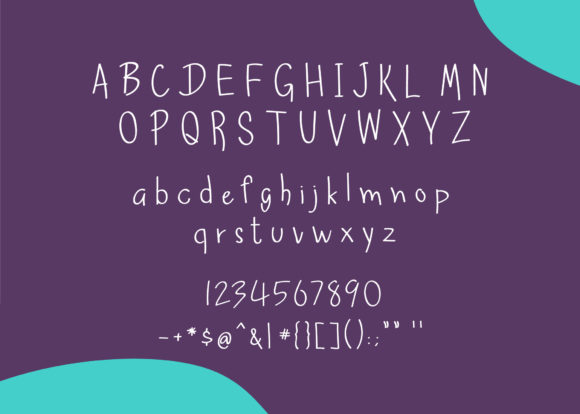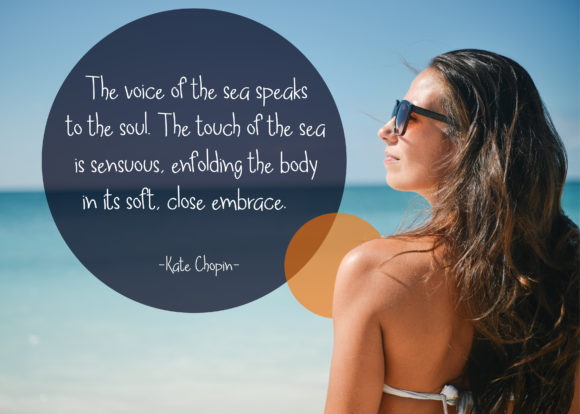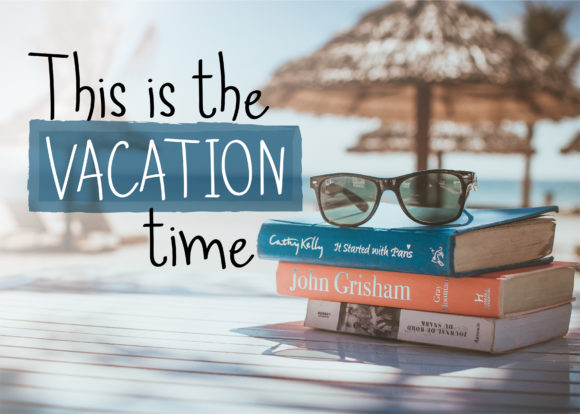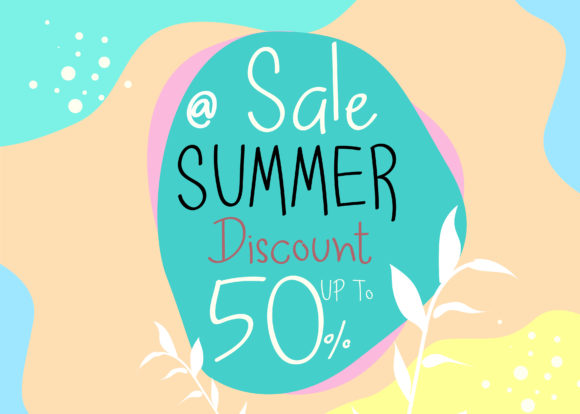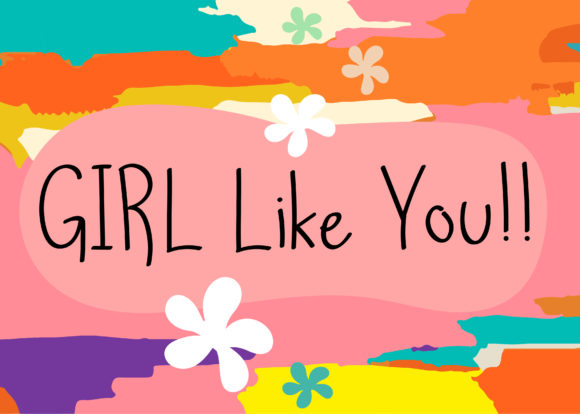
Introducing Beach Girl Font: The Perfect Addition to Your Summer Creative Projects
Are you looking for a font that captures the carefree and playful essence of summer? Look no further than Beach Girl Font, a simple and friendly handwritten font that’s perfect for adding a touch of warmth and personality to your creative projects. In this article, we’ll dive into the features and benefits of Beach Girl Font, and explore how you can use it to make your summer designs stand out.
What is Beach Girl Font?
Beach Girl Font is a beautiful handwritten font that’s designed to evoke the feeling of a warm summer day. With its simple and friendly design, this font is perfect for a wide range of creative projects, from summer-themed crafts and DIYs to digital designs and marketing materials. Whether you’re a designer, crafter, or simply someone who loves to get creative, Beach Girl Font is a versatile and fun font that’s sure to inspire.
Key Features of Beach Girl Font
So what makes Beach Girl Font so special? Here are just a few of its key features:
- Handwritten design: Beach Girl Font has a beautiful, handwritten design that’s perfect for adding a personal touch to your creative projects.
- Simple and friendly: This font is designed to be simple and easy to read, making it perfect for use in a wide range of applications.
- Summer-themed: With its carefree and playful design, Beach Girl Font is perfect for summer-themed projects and designs.
- Versatile: This font can be used in a wide range of creative projects, from digital designs and marketing materials to crafts and DIYs.
How to Use Beach Girl Font in Your Creative Projects
So how can you use Beach Girl Font in your creative projects? Here are just a few ideas to get you started:
- Summer crafts: Add Beach Girl Font to your summer crafts, such as signs, banners, and decorations, to give them a personal and playful touch.
- Digital designs: Use Beach Girl Font in your digital designs, such as social media graphics, blog posts, and email newsletters, to add a touch of warmth and personality.
- Marketing materials: Add Beach Girl Font to your marketing materials, such as brochures, flyers, and posters, to give them a fun and playful vibe.
- DIY projects: Use Beach Girl Font in your DIY projects, such as handmade cards, gift tags, and journals, to add a personal and creative touch.
Tips for Using Beach Girl Font Effectively
Here are a few tips for using Beach Girl Font effectively in your creative projects:
- Use it sparingly: Beach Girl Font is a bold and playful font, so use it sparingly to add emphasis and personality to your designs.
- Pair it with other fonts: Beach Girl Font pairs well with other fonts, such as sans-serif fonts and script fonts, to create a unique and interesting design.
- Experiment with colors: Beach Girl Font looks great in a range of colors, from bright and bold to soft and pastel.
Beach Girl Font is a simple and friendly handwritten font that’s perfect for adding a touch of warmth and personality to your summer creative projects. With its carefree and playful design, this font is sure to inspire your creativity and help your designs stand out. Whether you’re a designer, crafter, or simply someone who loves to get creative, Beach Girl Font is a versatile and fun font that’s sure to become a favorite.